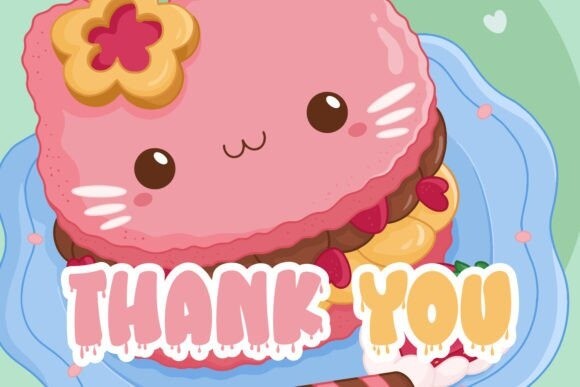
Retro Melt Font
Retro Melt Font is a cool, fun, and playful display font. It is the perfect font for titles or words needing a more dramatic emphasis. Whatever the topic, this font will be a wonderful asset to your font library, as it has the potential to enhance any creation.